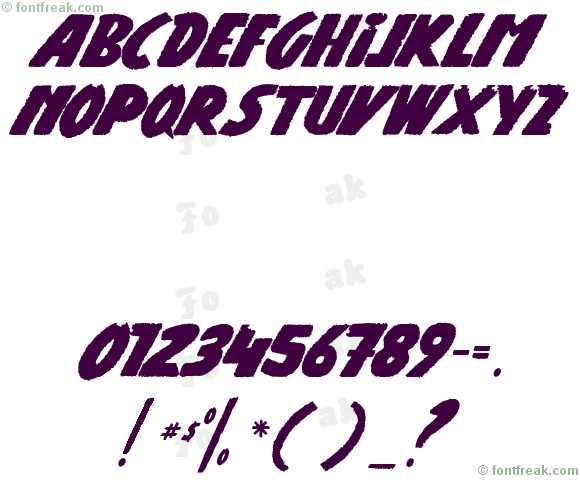
ROAD OF DEAL
The ROAD OF DEAL font by Agathe M. Joyce is an eye-catching display typeface that combines a bold and dynamic aesthetic with a touch of playful energy. This font features a distinctive, slightly rough texture, which gives it a handcrafted feel, making it perfect for projects that require a sense of authenticity and character. The stroke weight is consistently thick, with a moderate contrast that enhances its visibility, while the spacing between letters creates a balanced look that is both inviting and easy to read.
Ideal for a variety of applications, the ROAD OF DEAL font shines in contexts such as promotional materials, event posters, and branding for small businesses like food trucks or casual eateries. Its energetic style can also elevate wedding invitations or celebration announcements, where a fun and memorable typography choice is essential. Additionally, it suits graphic design projects that aim to convey a sense of adventure or excitement, making it a versatile choice for creative professionals.
What sets the ROAD OF DEAL font apart is its ability to evoke a sense of movement and enthusiasm, making it an excellent choice for those looking to capture attention and inspire action. Whether you are designing for a casual event or a creative campaign, this font will undoubtedly leave a lasting impression, making it an essential addition to any font library.